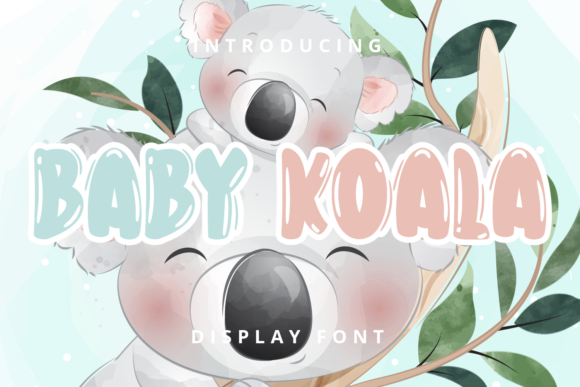
Baby Koala Font: The Ultimate Display Font for Creative Designs
Are you tired of using the same old fonts for your designs? Look no further than the Baby Koala Font! This cool and bubbly display font is perfect for adding a touch of personality to your projects. With its natural and unique style, Baby Koala Font is incredibly versatile and can be used for a wide range of designs, from playful crafts to professional branding.
What Makes Baby Koala Font So Special?
Baby Koala Font is a one-of-a-kind display font that stands out from the crowd. Its distinctive style is reminiscent of handwritten text, but with a modern and playful twist. The font features rounded edges and a carefree vibe that’s sure to capture the attention of your audience. Whether you’re creating a logo, poster, or social media graphic, Baby Koala Font is the perfect choice for adding a dash of whimsy and fun.
The best part about Baby Koala Font is its incredible versatility. The font’s natural and unique style makes it suitable for a wide range of designs, from:
• Playful crafts and DIY projects
• Professional branding and logos
• Posters and flyers
• Packaging and labels
• And many more!
The only limit is your imagination! With Baby Koala Font, you can create unique and eye-catching designs that reflect your personality and style.
Why Designers and Crafters Love Baby Koala Font
Designers and crafters alike are raving about Baby Koala Font, and for good reason. Here are just a few reasons why:
• Easy to read: Despite its playful style, Baby Koala Font is incredibly easy to read, making it perfect for designs that require a clear and concise message.
• Highly versatile: As mentioned earlier, Baby Koala Font can be used for a wide range of designs, making it a great addition to any design library.
• Unique and eye-catching: Baby Koala Font is sure to grab attention and make your designs stand out from the crowd.
• Perfect for kids’ designs: The font’s playful and whimsical style makes it perfect for designs aimed at kids, such as children’s books, toys, and games.
Tips for Using Baby Koala Font
To get the most out of Baby Koala Font, here are a few tips to keep in mind:
• Use it sparingly: While Baby Koala Font is incredibly versatile, it’s best to use it sparingly to avoid overwhelming your design.
• Pair it with other fonts: Experiment with pairing Baby Koala Font with other fonts to create a unique and visually appealing design.
• Experiment with colors: Don’t be afraid to experiment with different colors and textures to add depth and interest to your design.
In conclusion, Baby Koala Font is a must-have for any designer or crafter looking to add a touch of personality to their designs. With its unique and playful style, this cool and bubbly display font is sure to capture attention and make your designs stand out from the crowd. So why wait? Download Baby Koala Font today and let your imagination run wild!